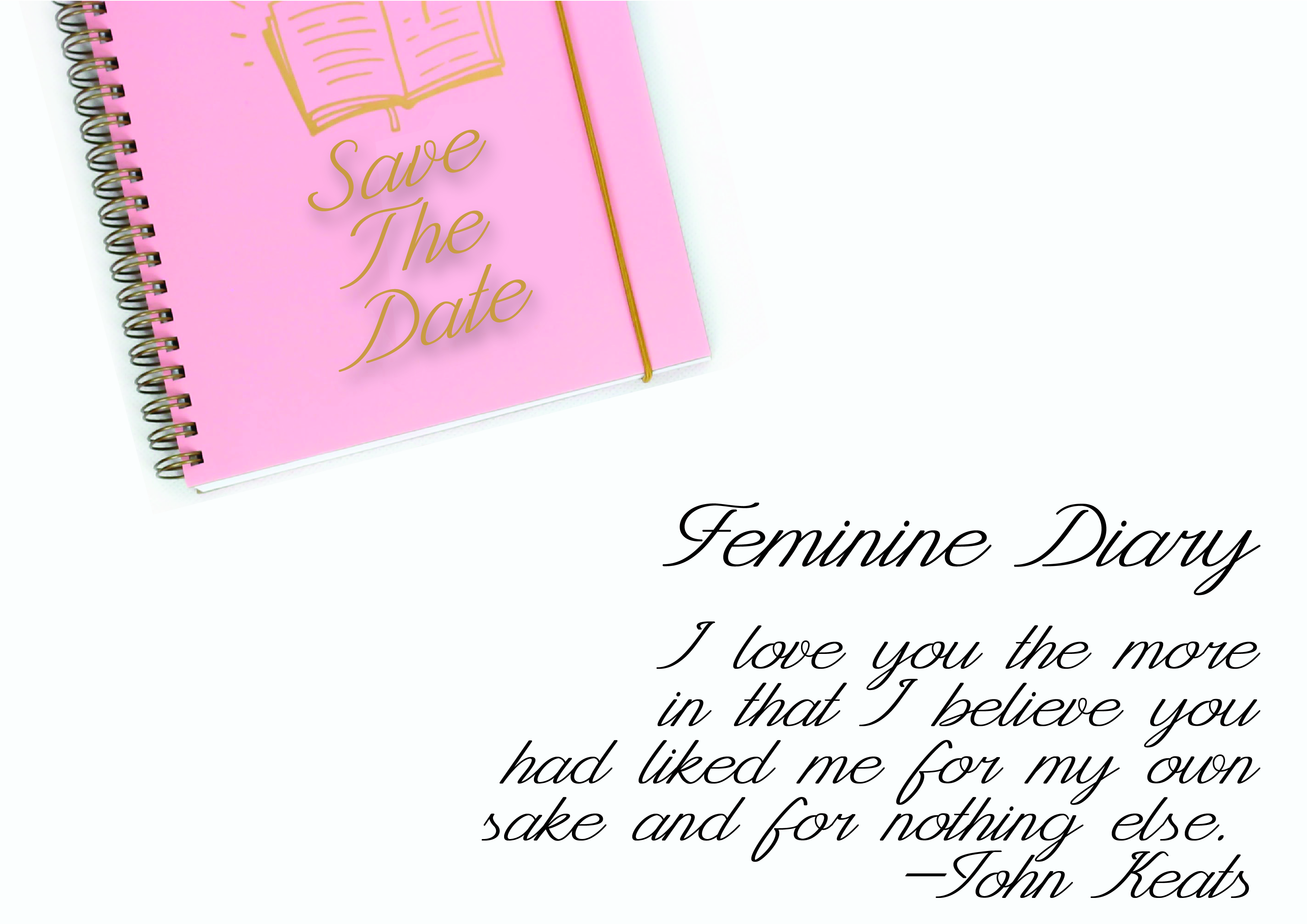
Introduction to Rabiole Font
Rabiole is a beautiful, modern calligraphy font that can be used in a number of different project types.
This font includes tons of characters so you can make truly impactful and stylish designs .
Rabiole Font offers exceptional quality and versatility, making it a valuable addition to your design toolkit. Whether you’re creating for personal projects or commercial use, Rabiole Font delivers professional results.